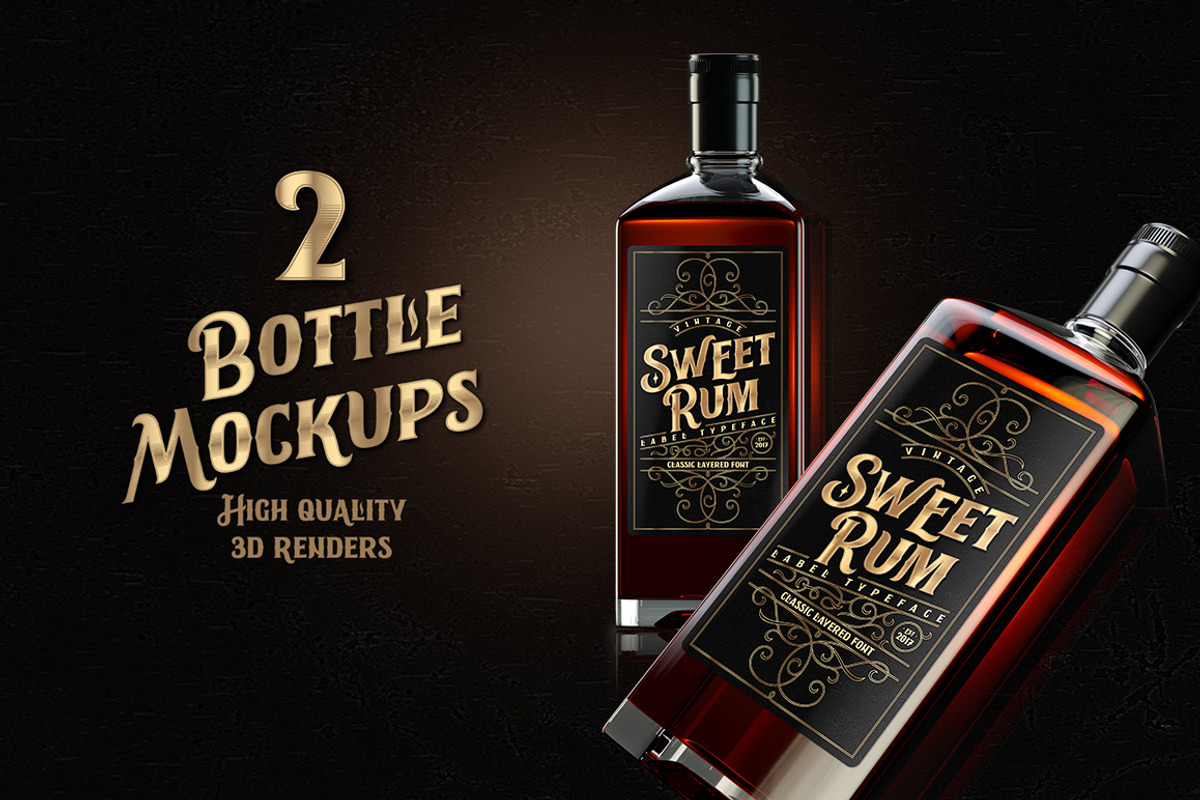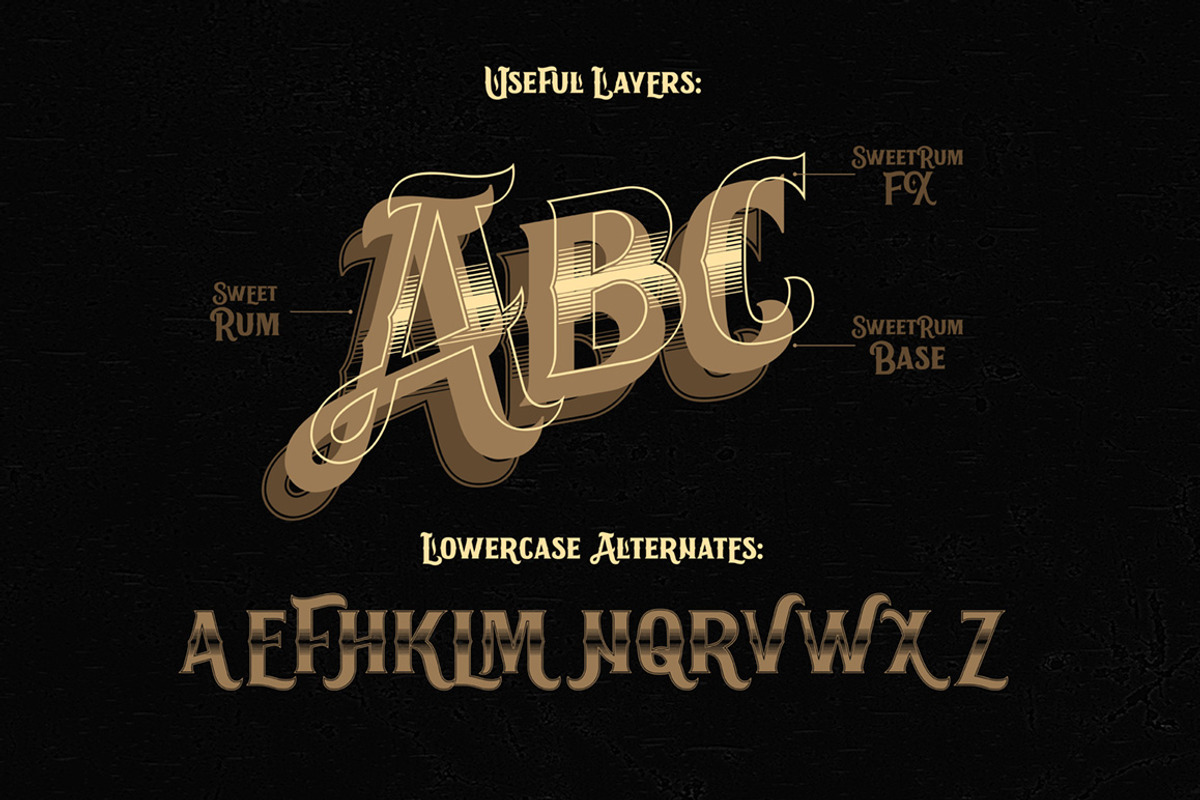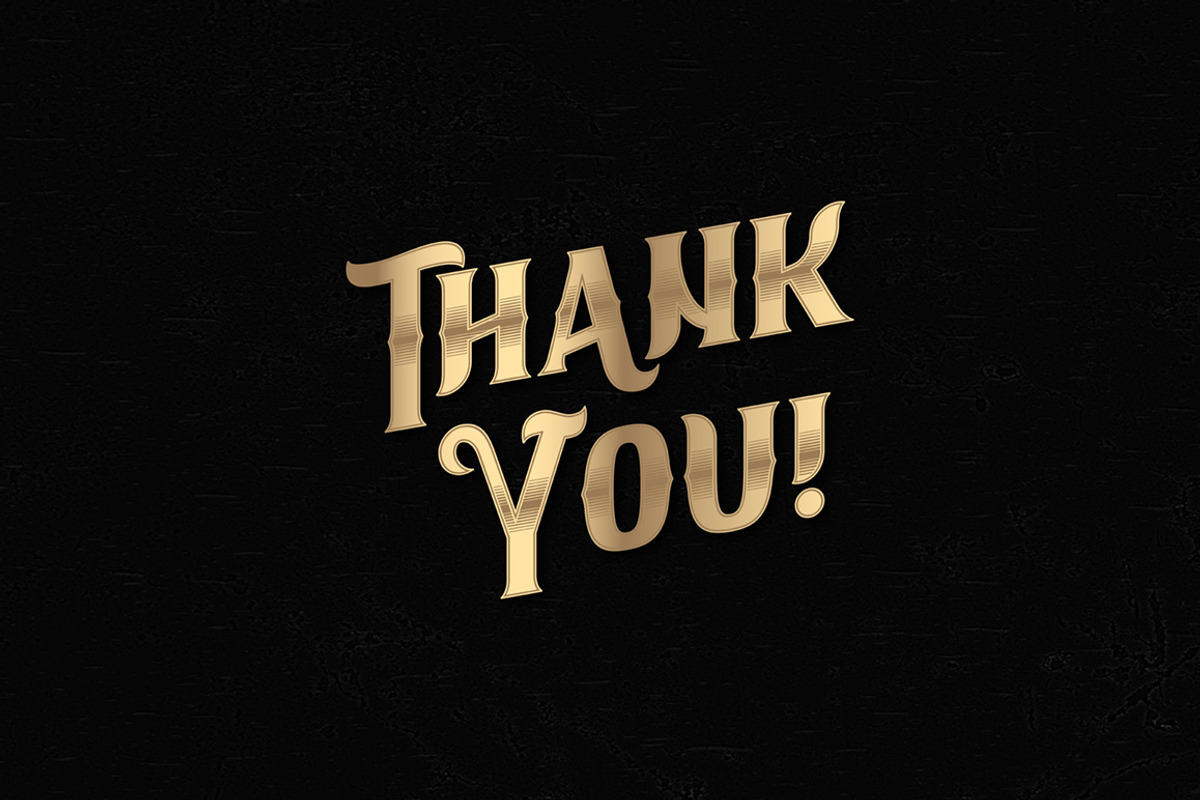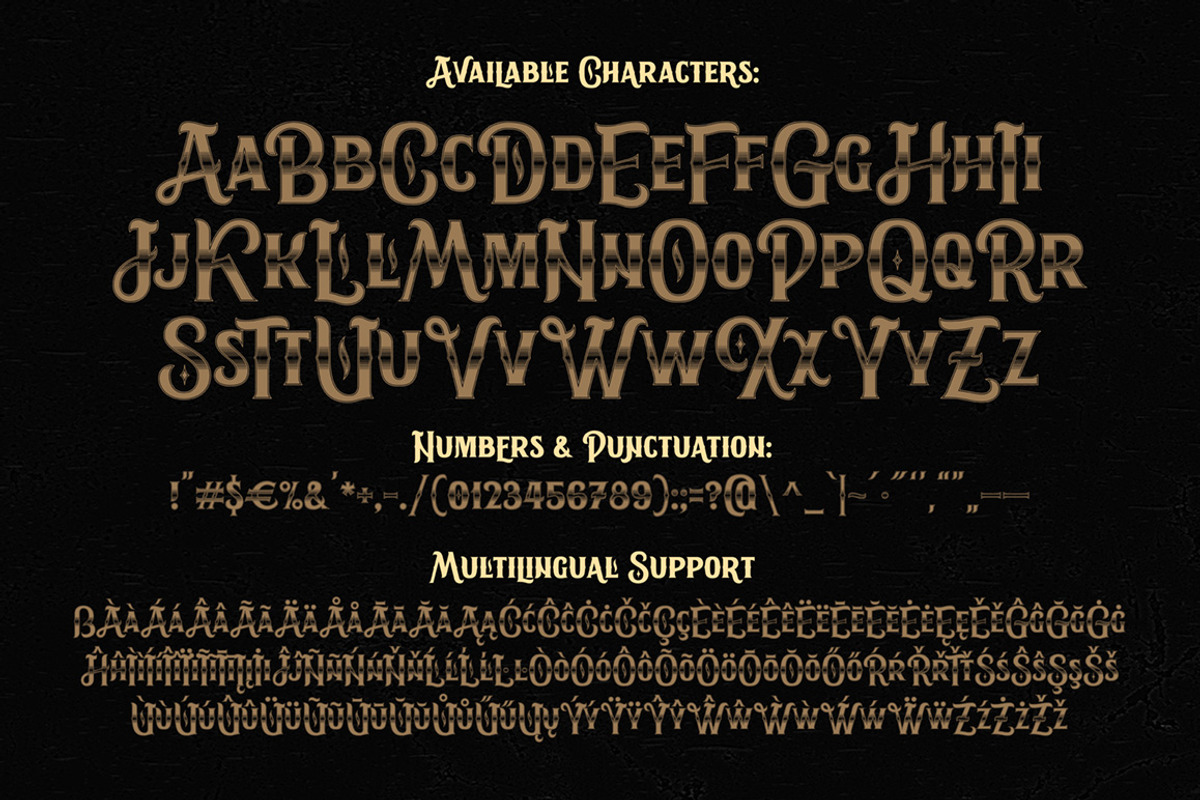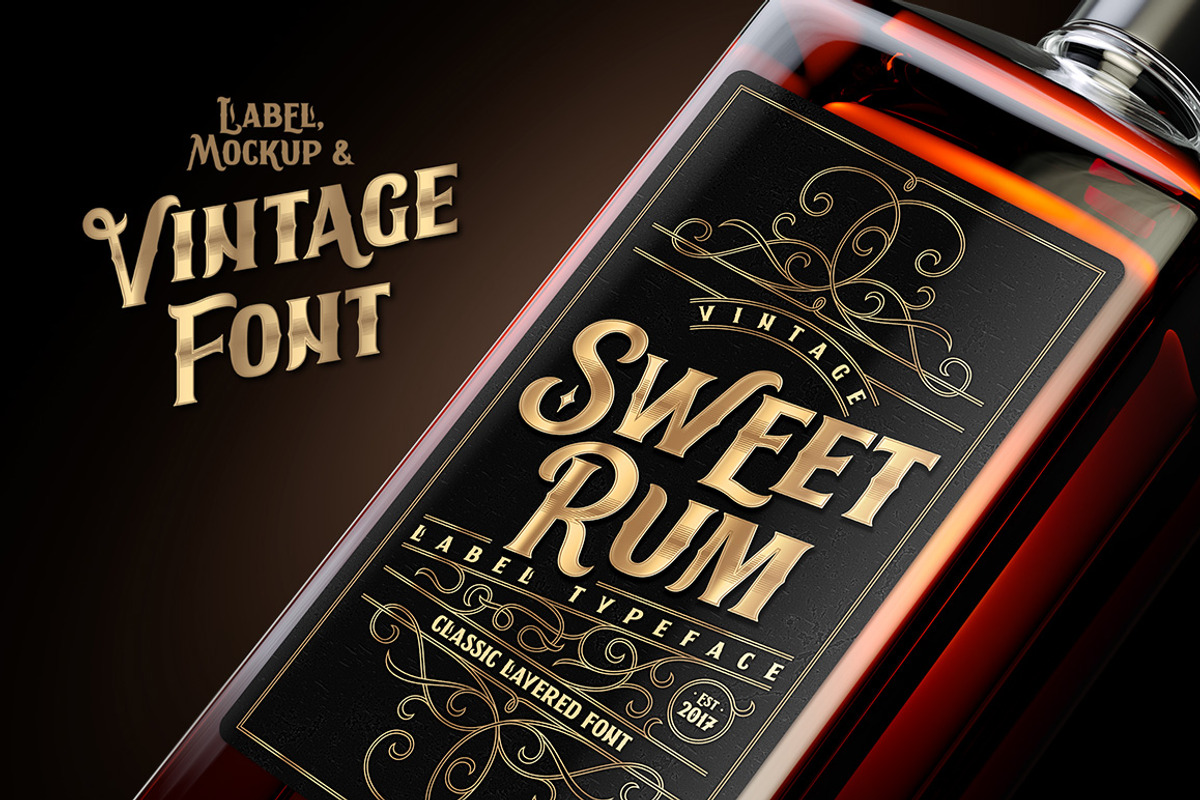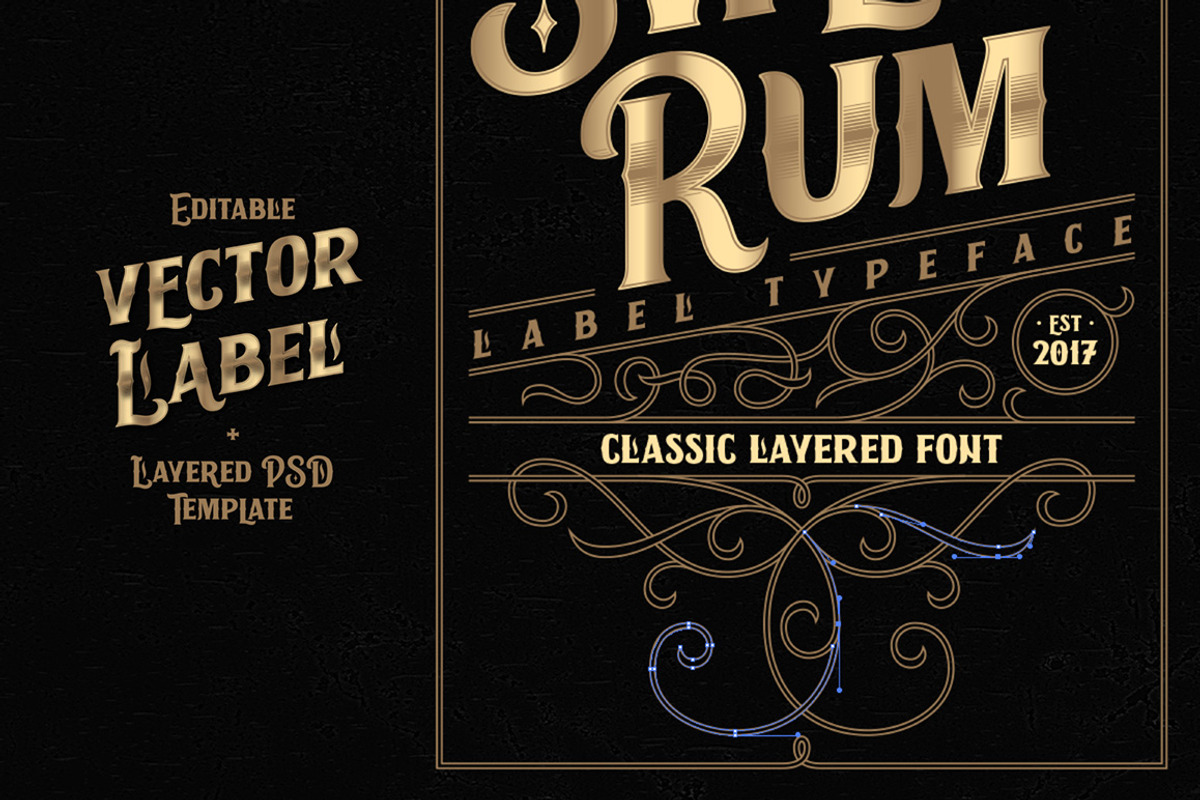
Sweet Rum Font, Label, Mockup!
Hi! Introducing an vintage typeface set named "Sweet Rum". It consists of three fonts, two high-resolution bottle mockups and an editable label template with decorative ornate.
- SweetRum Regular
- SweetRum Base Regular
- SweetRum FX Regular